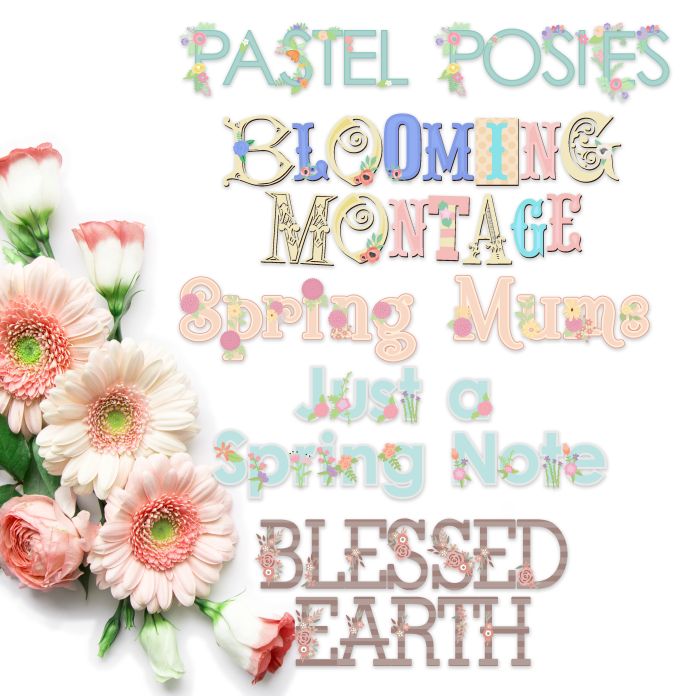
This full-color font bundle features five font full-color alphabets, each with an emphasis on the pastel florals. These fonts works best for titles, displays, posters and more. Please note color fonts will show as black in non compatible programs. These font types are compatible with Silhouette Studio.